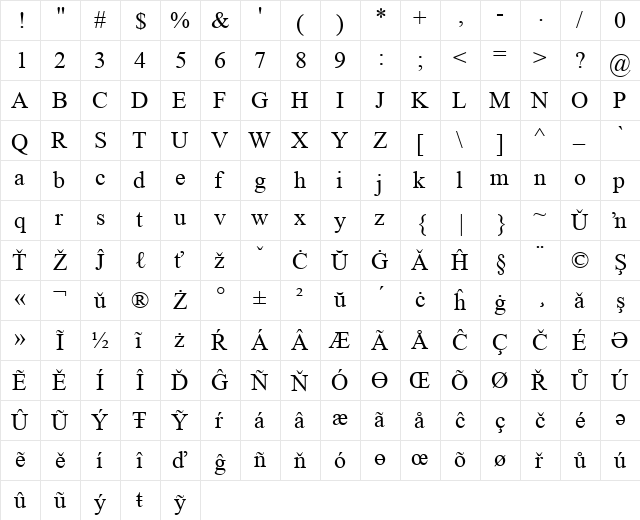
Times NR Liborius Regular
| Foundry | Liborsoft Typography |
| Designer | Libor Sztemon |
Design Context for Times NR Liborius Typeface
Times NR Liborius offers clean, dependable letterforms without strong stylistic allegiance, making it a practical choice for designers who need flexibility.